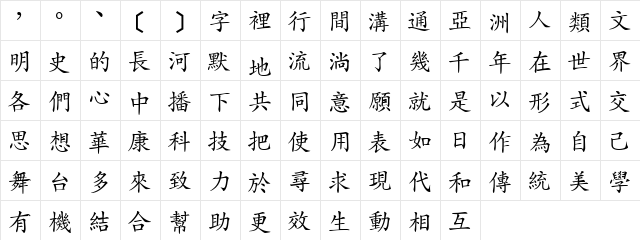
DFLiKaiShu1B Regular Font Preview
DFLiKaiShu1B Regular
Design Context for DFLiKaiShu1B Typeface
DFLiKaiShu1B offers clean, dependable letterforms without strong stylistic allegiance, making it a practical choice for designers who need flexibility.